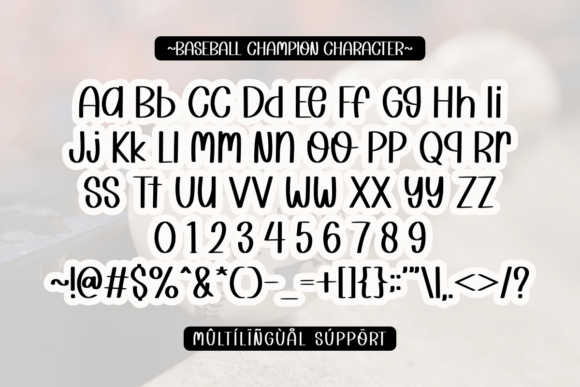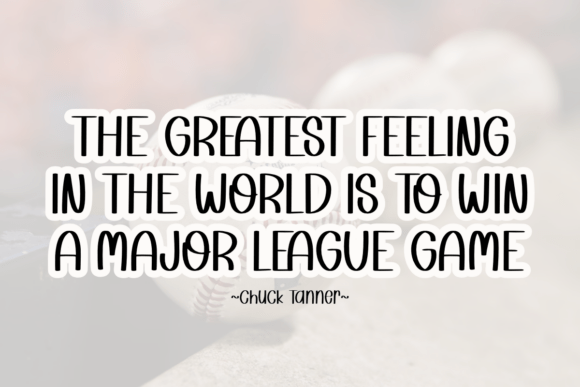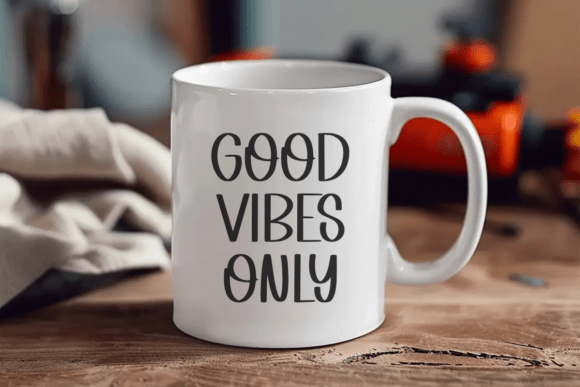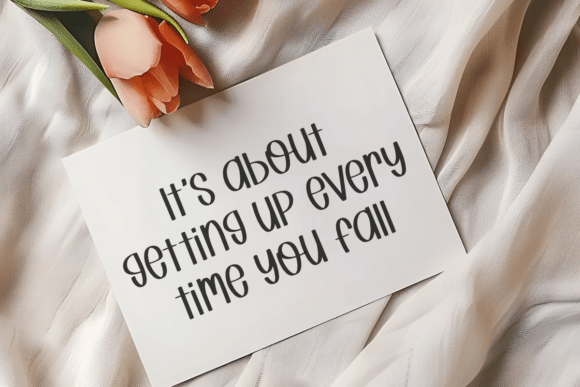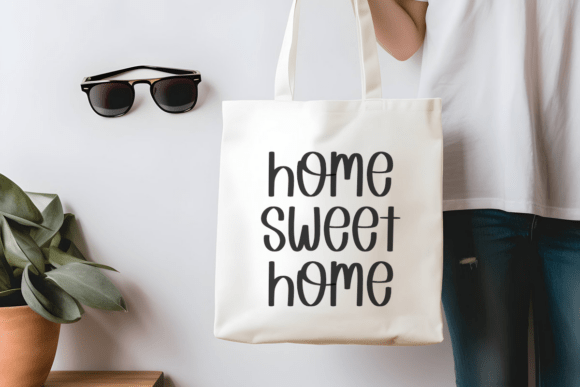
Unleashing Creativity with Baseball Champion Font
Have you ever stared at a blank page or screen, feeling like your next creative project is just out of reach? You’ve got a great idea, but the perfect font to bring it to life is nowhere to be found. That’s where the Baseball Champion Font comes in – a charming and minimalist sans serif font that’s sure to be the home run your design needs.
This versatile font is perfect for a wide range of applications, from greeting cards and wedding invitations to gift labels, mugs, and t-shirts. Its clean and simple design makes it easy to read and understand, even for the most complex of messages. For designers, the Baseball Champion Font is a valuable addition to any toolkit, offering endless possibilities for creating spectacular and interesting designs.
Baseball Champion Font Key Features
- Font Family: Baseball Champion Font is a unique, custom-designed font family, making it ideal for sports-related branding and design projects.
- Size: The font family includes multiple weights, ranging from Light to Extra Bold, providing versatility for various design applications.
- Unique Characteristics: Features a classic, retro-inspired aesthetic with bold lines and dynamic flair, making it perfect for sports-themed designs, logos, and branding.
Review: Baseball Champion Font
Overall, I’m impressed with the Baseball Champion Font. It’s a great choice for designers looking for a nostalgic and classic feel. ✨ The font is highly customizable, with multiple font styles and weights available, which makes it perfect for creating a wide range of designs.
Here are some of the things I like about the Baseball Champion Font:
- ✨ High-quality vector graphics that ensure crisp and clear output
- ✨ Easy to use and customize with various font styles and weights
However, I do have a few concerns:
- ⚠️ Limited support for international languages, which may be a concern for designers working with non-English clients
- ⚠️ Some of the font styles may look dated or overused, which could detract from the overall design
Overall, I think the Baseball Champion Font is a solid choice for designers looking for a classic and nostalgic feel. While it has some limitations, it’s still a great option for creating unique and eye-catching designs.
To get the most out of the Baseball Champion Font, use it to create bold, eye-catching headlines and titles. It pairs well with sporty and vintage themes. You can also use it to create custom logos, icons, and graphics.
The Baseball Champion Font is commonly used in sports-themed designs, such as:
- Baseball and softball team logos and branding.
- Sports event posters and flyers.
- Vintage-style sports graphics and illustrations.